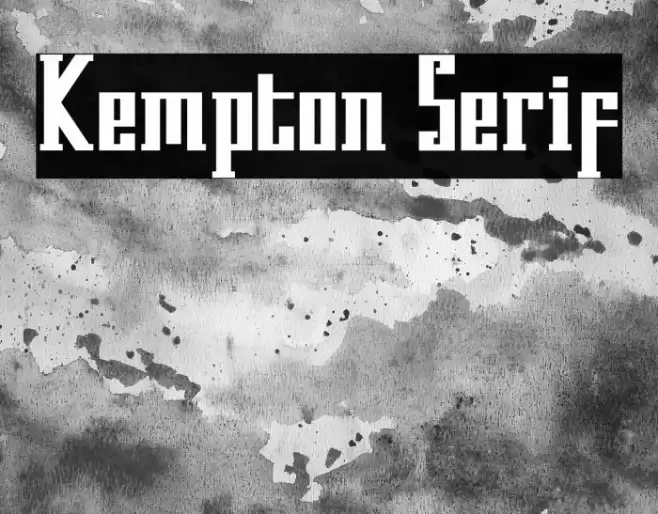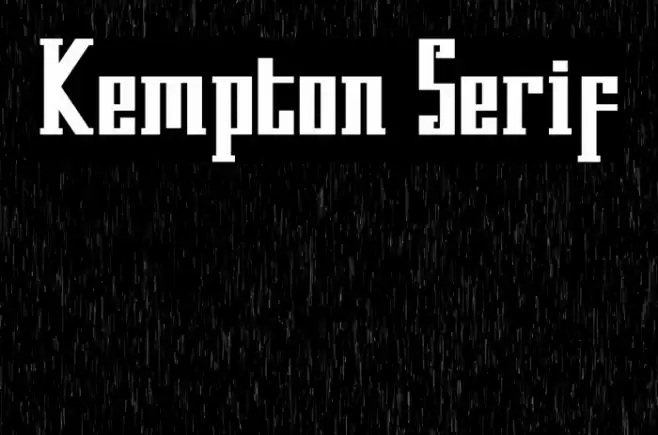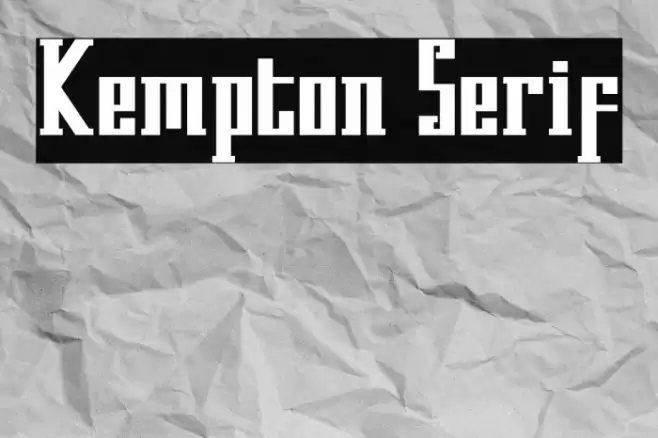
Kempton Serif Font
Kempton Serif Description
This font features a bold and striking design with a strong presence. The uppercase letters are tall and narrow, with sharp angles and a distinctive geometric style. The lowercase letters maintain a consistent height, complementing the uppercase with a slightly more compact form. Numbers are robust and align well with the overall aesthetic, while special characters are crafted to match the boldness of the alphabet. The font's design is reminiscent of vintage poster typography, making it ideal for attention-grabbing headlines and titles.
A bold, geometric font with a vintage poster style from Uncategorized fonts.
- Proposed Projects: Ideal for posters, headlines, branding, and any project requiring a strong visual impact.
- Overall Style: Vintage